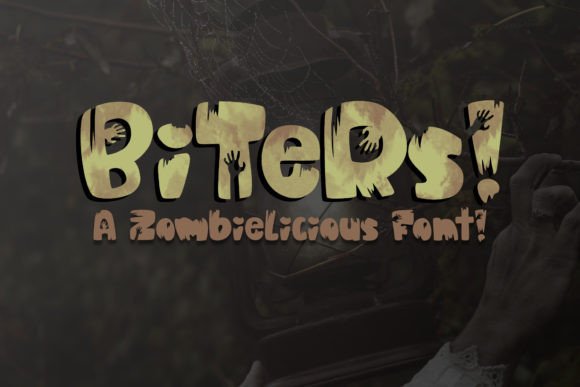
Embrace the macabre and let your imagination run wild with Biters, the font that effortlessly blends the whimsical with the wicked. This captivating decorative font, brought to life by cuddlebunniestudio, is a visual treat that will add a touch of spooky charm to your creative endeavors.
Picture this: a fat lettered zombie script, adorned with eerie zombie hands intricately woven into the design. It's a font that seems to have crawled straight out of a horror film, making it the perfect choice for Halloween-themed projects, spooky coloring books, and any design seeking a touch of the supernatural.
Biters is more than just a font; it's an artistic expression that invites you to unleash your creative demons. Imagine the possibilities: haunting invitations for your Halloween party, spine-chilling posters for your horror movie marathon, or unique T-shirts that exude a mysterious aura. With Biters, your designs will have a captivating presence that's sure to leave a lasting impression.
So, dive into the world of Biters, where the ordinary becomes extraordinary, and let this font ignite your creativity. Embrace the darkness, let your imagination soar, and create designs that are as unforgettable as they are eerie with Biters.